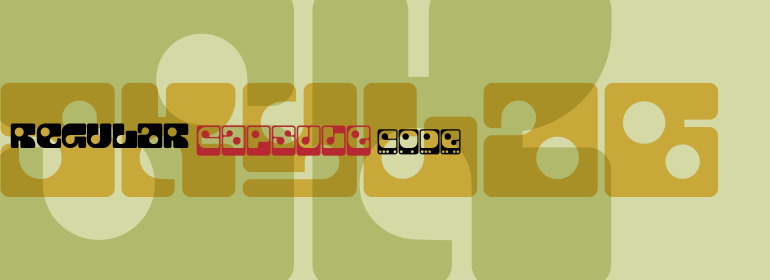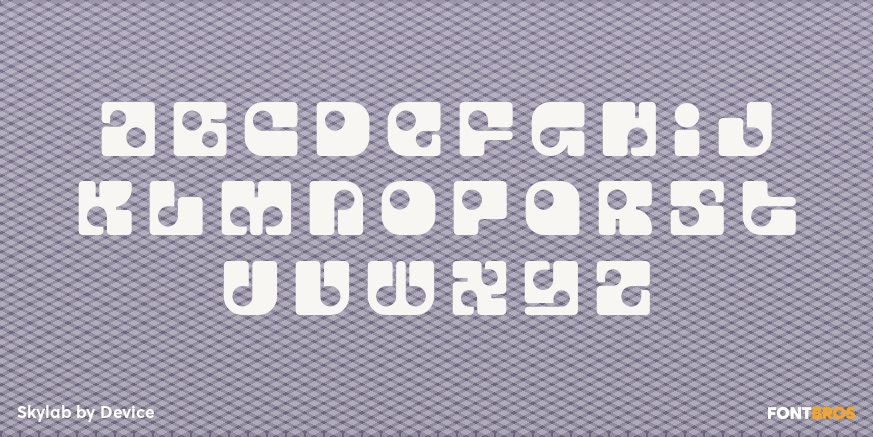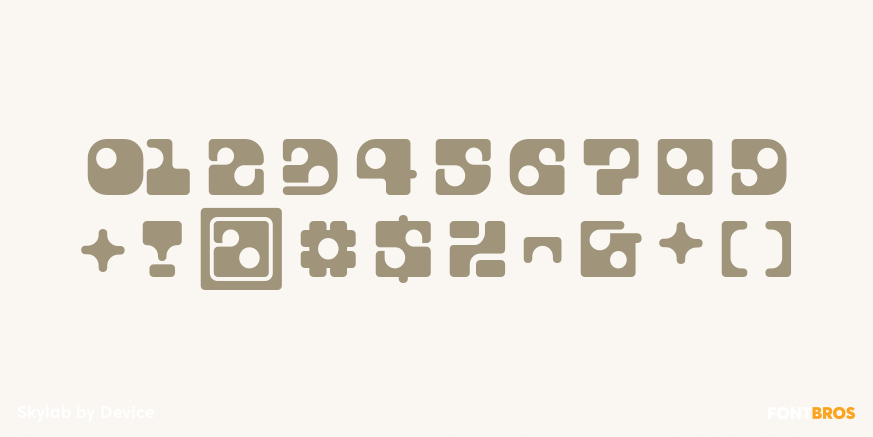
Skylab
Font Family by Device
Skylab is a three-style display family from Device with a distinctly retro-futuristic feel. Its look lands somewhere between late-1960s space-age optimism and 1970s groovy graphics, giving headlines and short phrases a bold, stylized presence.
The family includes Skylab Regular, Skylab Code, and Skylab Capsule, each offering a different take on the same sci-fi-inspired idea. That makes it a strong choice for posters, logo concepts, album art, packaging, apparel graphics, and other display work that calls for a vintage future vibe.
If you want lettering that feels playful, futuristic, and era-specific without losing impact, this set gives you a compact range of options for building a cohesive visual direction.